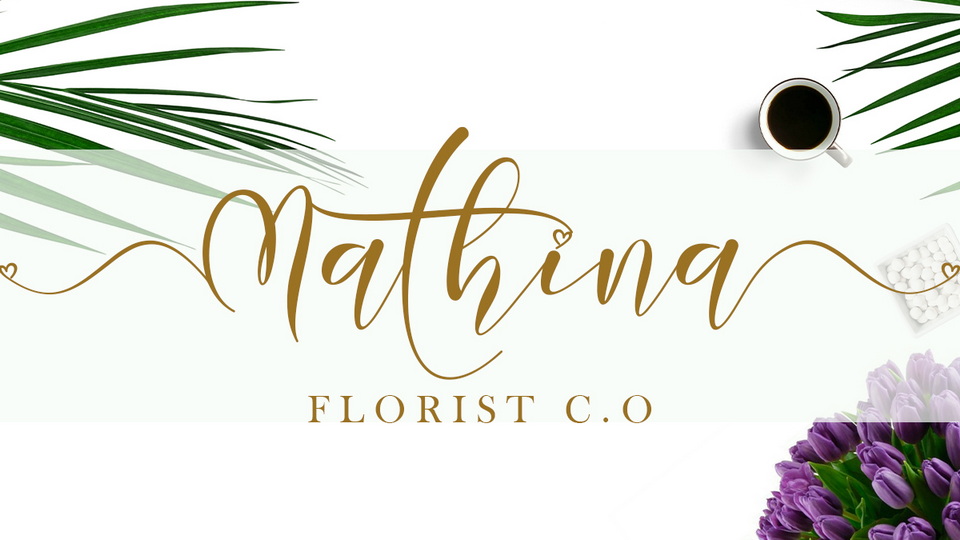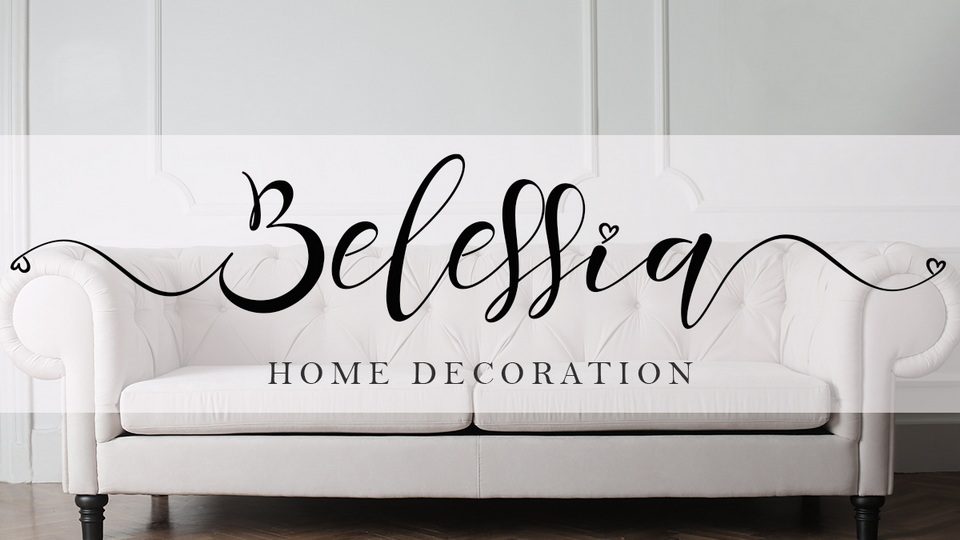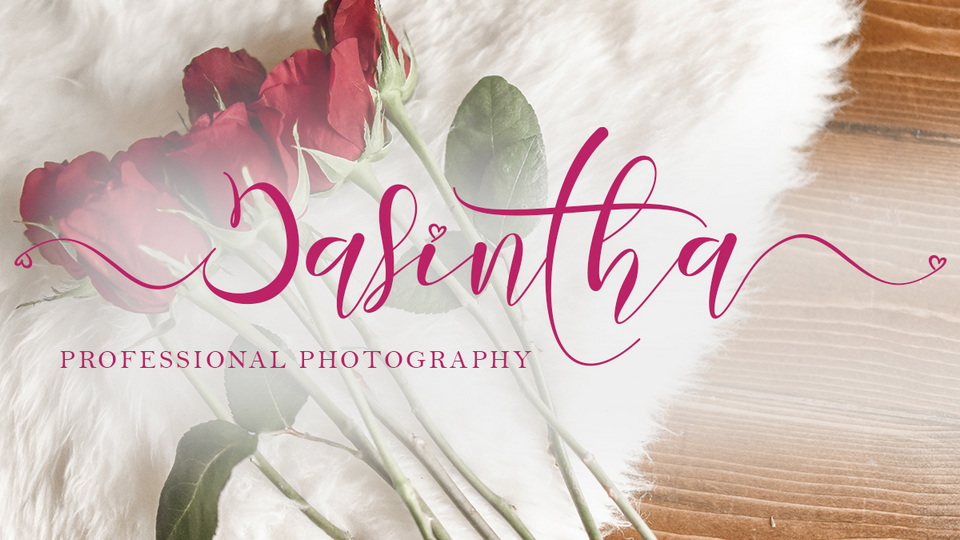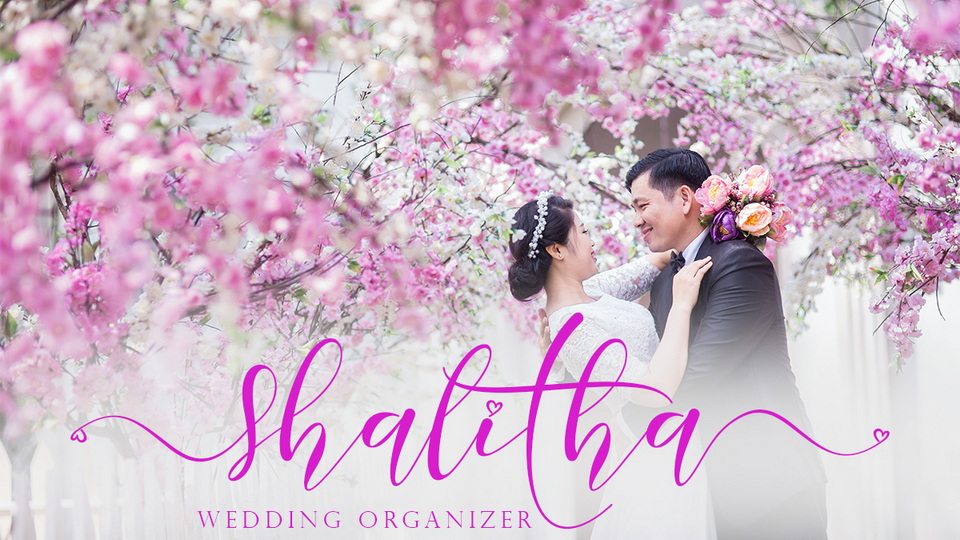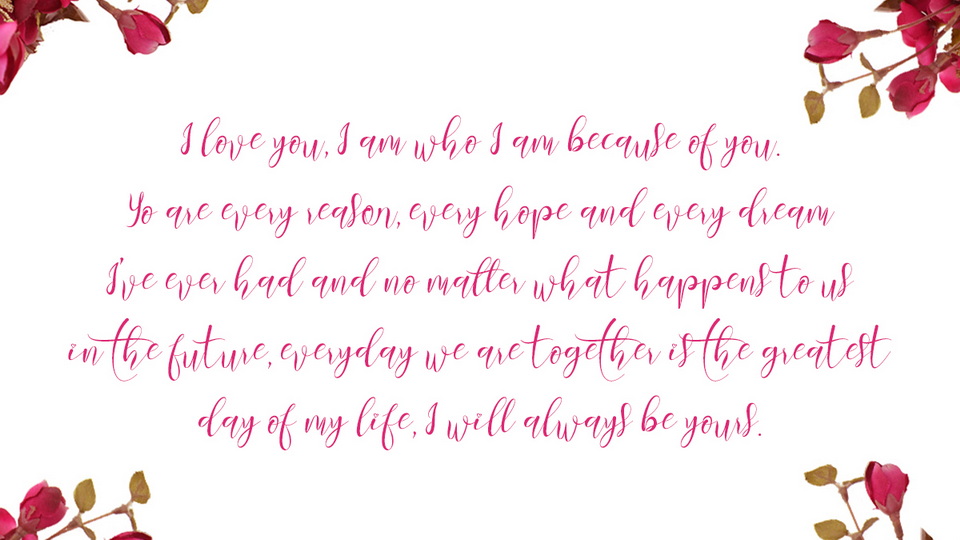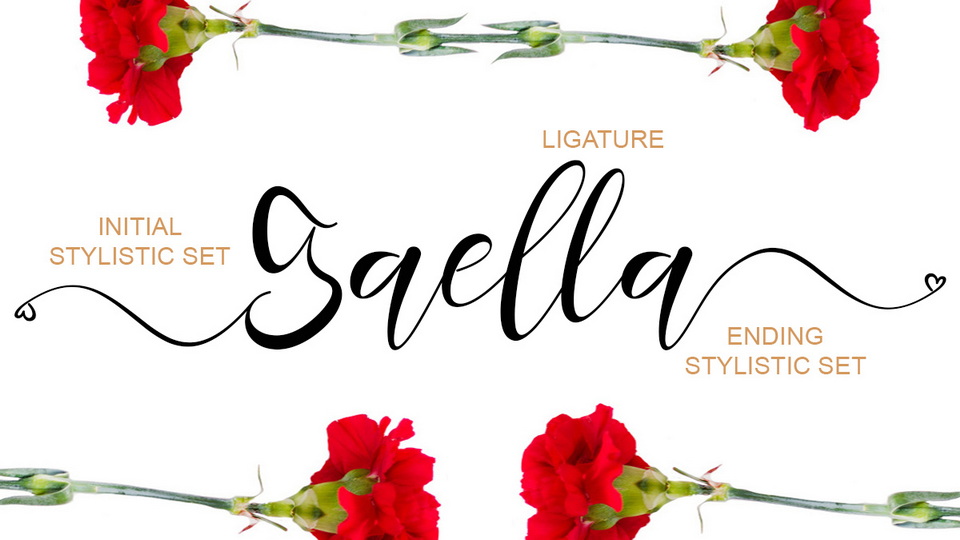
Monalissa is a very beautiful hand painted font that is made with great love. This font can make your work more romantic and elegant.
Monalissa is perfect for marketing your products, promoting your business, making quotes, weddings, invitation cards, logos, branding and status updates on social media, can also be used to beautify your beautiful moments, and others.